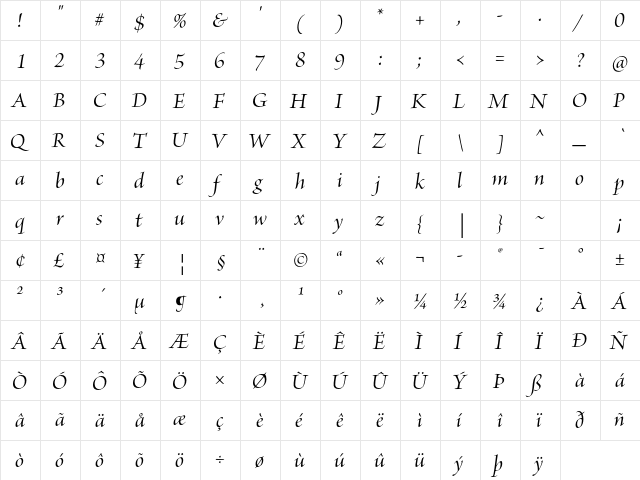
Brioso Pro Medium Italic Display
| Designer | Robert Slimbach |
Design Context for Brioso Pro Typeface
Brioso Pro is built around its visual character rather than neutral utility — its distinctive forms are designed to make an impression at display sizes. Its italic angle brings a sense of urgency and motion to the letterforms.
Font Pairing: Pair with a clean neutral sans-serif for body copy to let Brioso Pro's character lead without overwhelming the composition.
Pro Tip: Treat Brioso Pro as the centrepiece of your typographic hierarchy. One strong heading set in a decorative face can carry an entire layout.